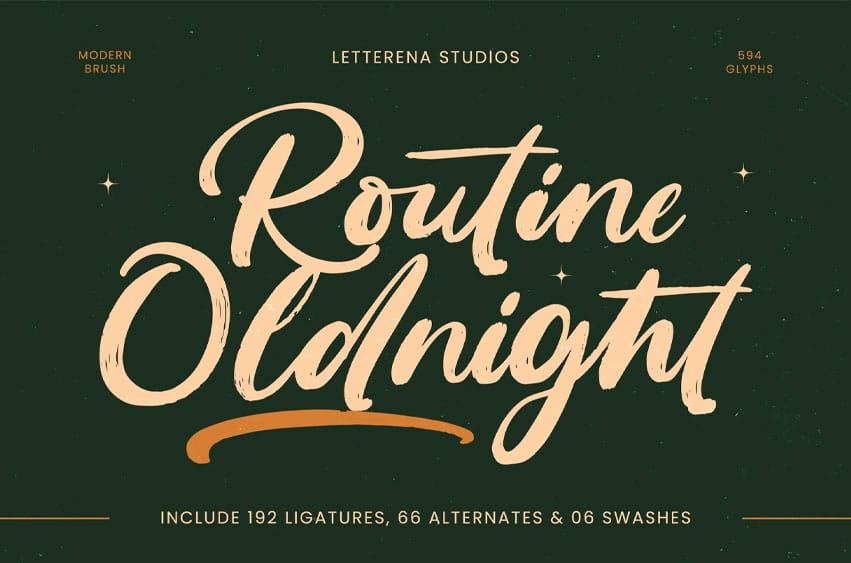
Routine Oldnight Font is suitable to complement your digital and printed creative products. This font is perfect for posters, social media posts, branding, personal projects, etc.